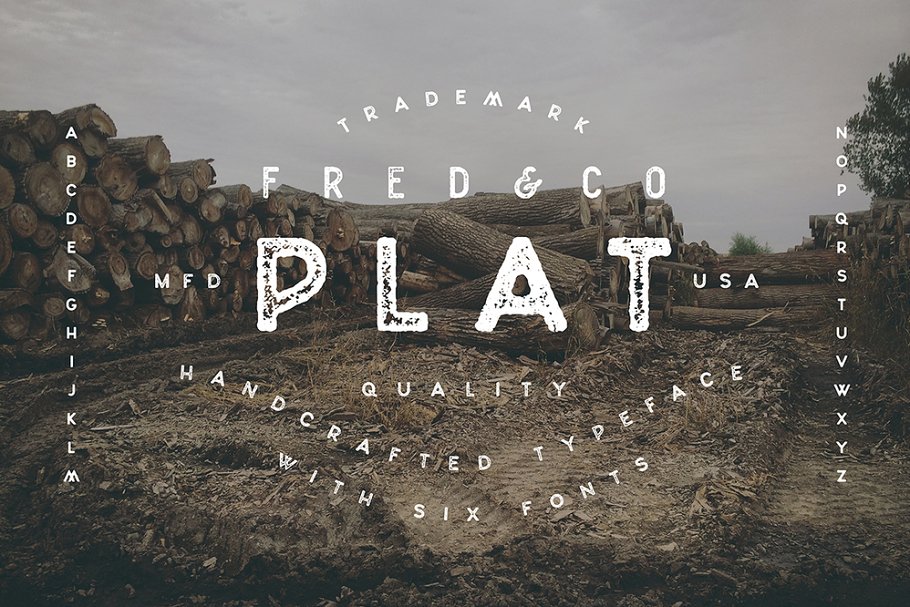
Introducing Plat, the ultimate sans serif typeface that will elevate your designs to new heights. Created by Nicolas Fredrickson, this font family is a game-changer for anyone looking to make a statement with their typography.
Plat offers a stunning collection of 6 fonts, including alternative versions of select letters, punctuation marks, and other key glyphs. Inspired by vintage prints, this typeface captures the essence of old-world charm with its smooth edges and grunge fonts.
The grunge fonts, with their stamp effect, add a unique texture to the inside of the letters, creating a visual appeal that is hard to resist. Combine this with the timeless vintage touch and modern approach, and you have a typeface that stands the test of time.
Whether you're designing a logo, apparel, wedding invitations, or stationery sets, Plat is the perfect choice. Its versatility knows no bounds, allowing you to unleash your creativity in both personal and commercial projects.